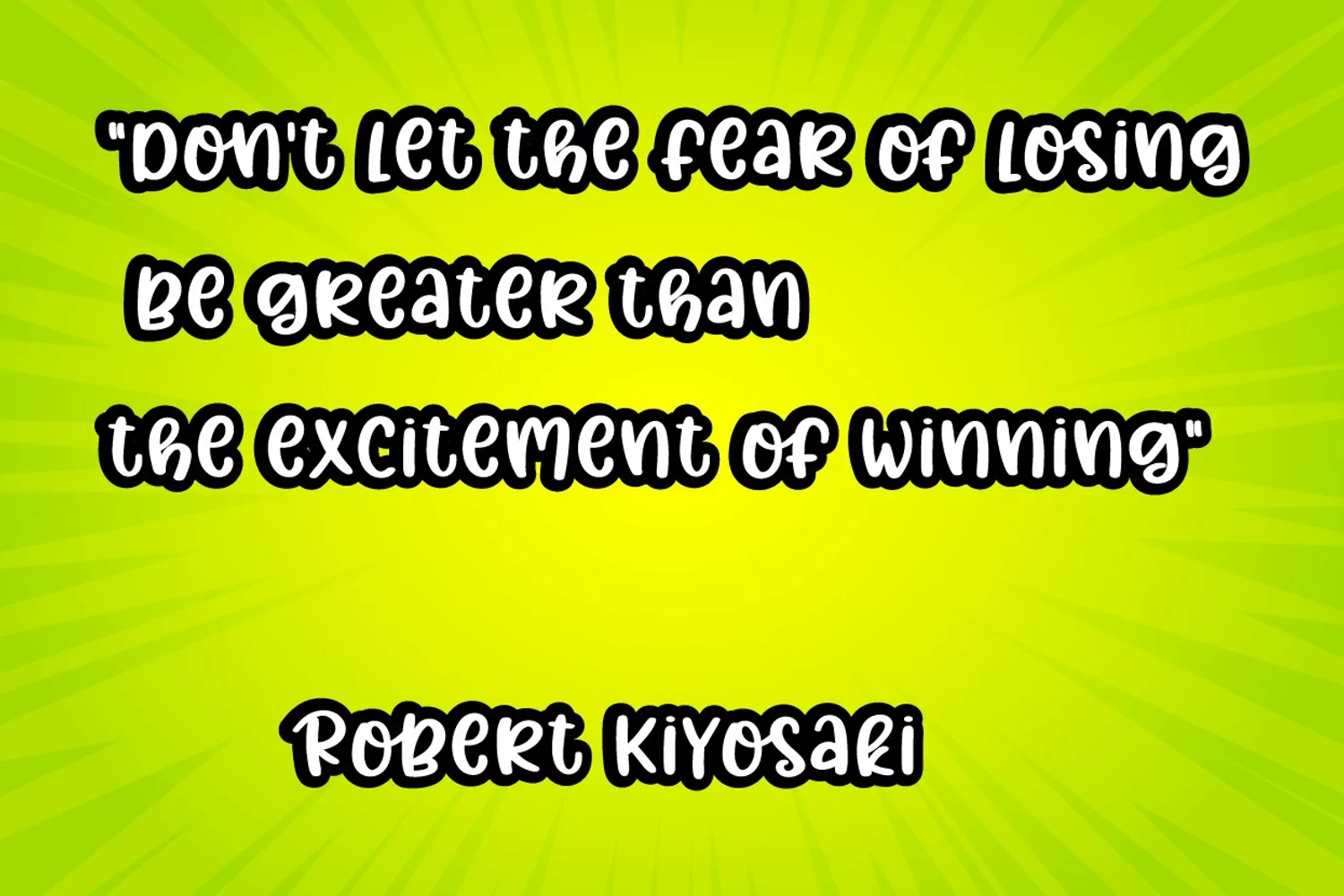
Amazing Moscow a new fresh & simple handwritten font style! So beautiful on invitation like greeting cards, branding materials, business cards, quotes, posters, and more!!
AmazingMoscow